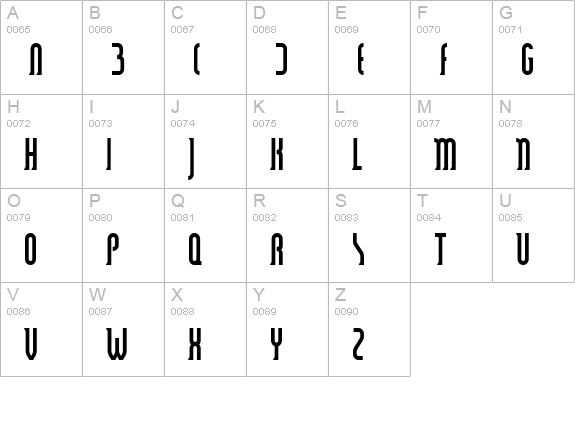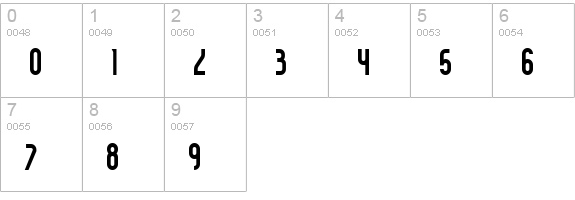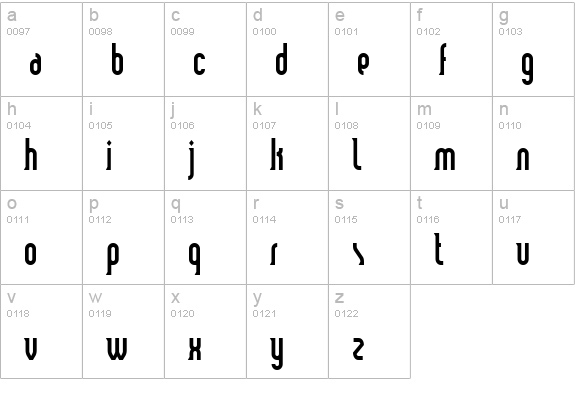
Smart and Sexy Bold Font Details
Smart and Sexy Bold is a strong, high-contrast variant in the Smart typeface family \xE2\x80\x94 well suited to headlines, attention-grabbing titles, and strong calls-to-action.
Introducing the captivating Smart and Sexy Bold font, a perfect blend of sophistication and allure. This typeface exudes confidence and style, making it suitable for a wide range of design projects. With its bold and commanding presence, Smart and Sexy Bold demands attention and leaves a lasting impression. The sleek and modern curves of this font effortlessly convey a sense of elegance and refinement. Its clean lines and well-defined characters make it incredibly versatile, allowing it to be seamlessly incorporated into various creative endeavors. From fashion magazines to luxury branding, from impactful headlines to eye-catching advertisements, Smart and Sexy Bold is sure to make a statement. But what sets this font apart is not just its irresistible appeal; it's the fact that it is freely available to download at FontsMarket.com. Yes, you read that right – you can now add this remarkable typeface to your collection without spending a dime. Enjoy the freedom to unleash your creativity and transform your designs with the sophistication and allure that only Smart and Sexy Bold can offer. Download Smart and Sexy Bold today and experience the power of this stunning font firsthand. Elevate your projects to new heights with its captivating presence and effortlessly convey your message with style. Don't miss out on this incredible opportunity to enhance your design arsenal – get Smart and Sexy Bold now, exclusively at FontsMarket.com.